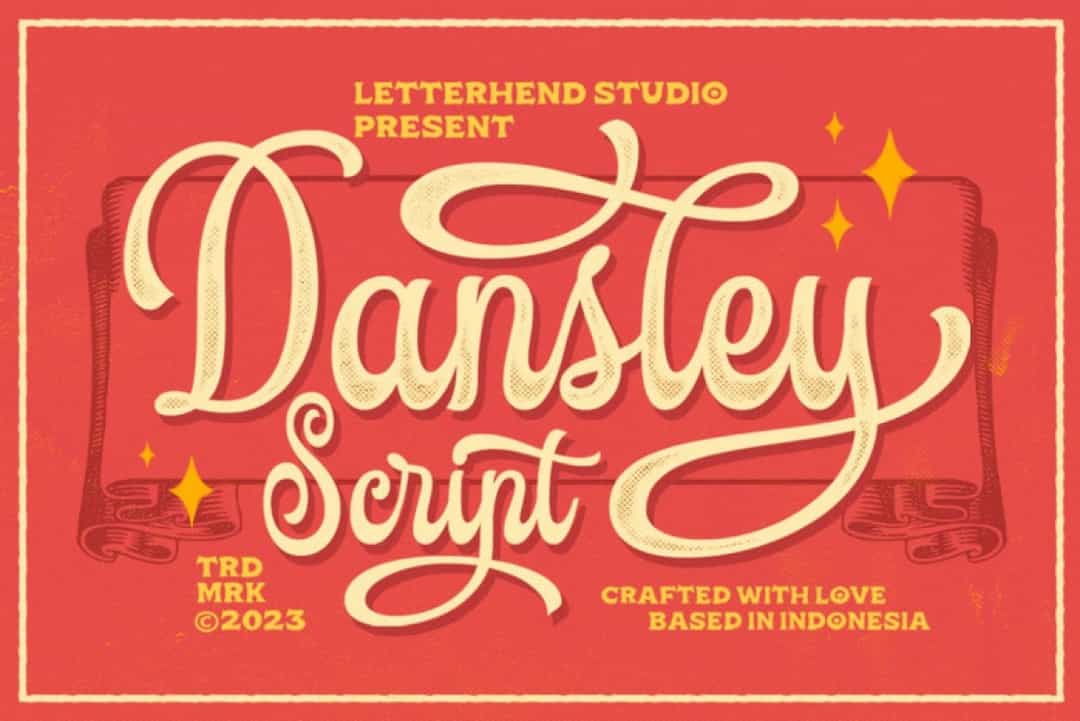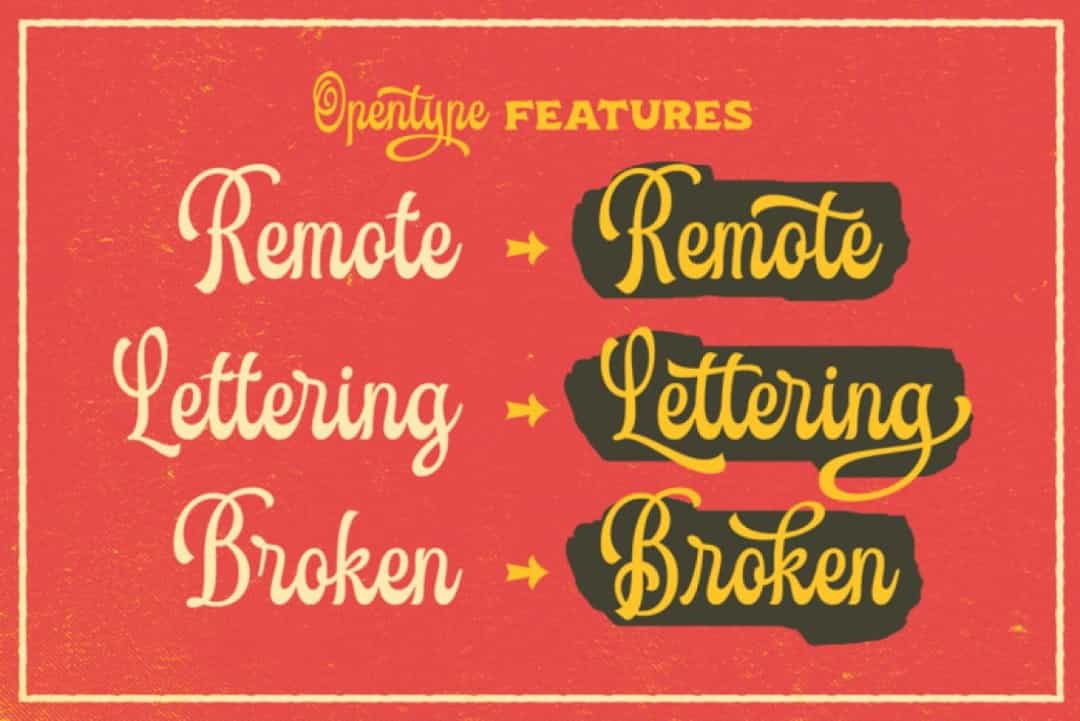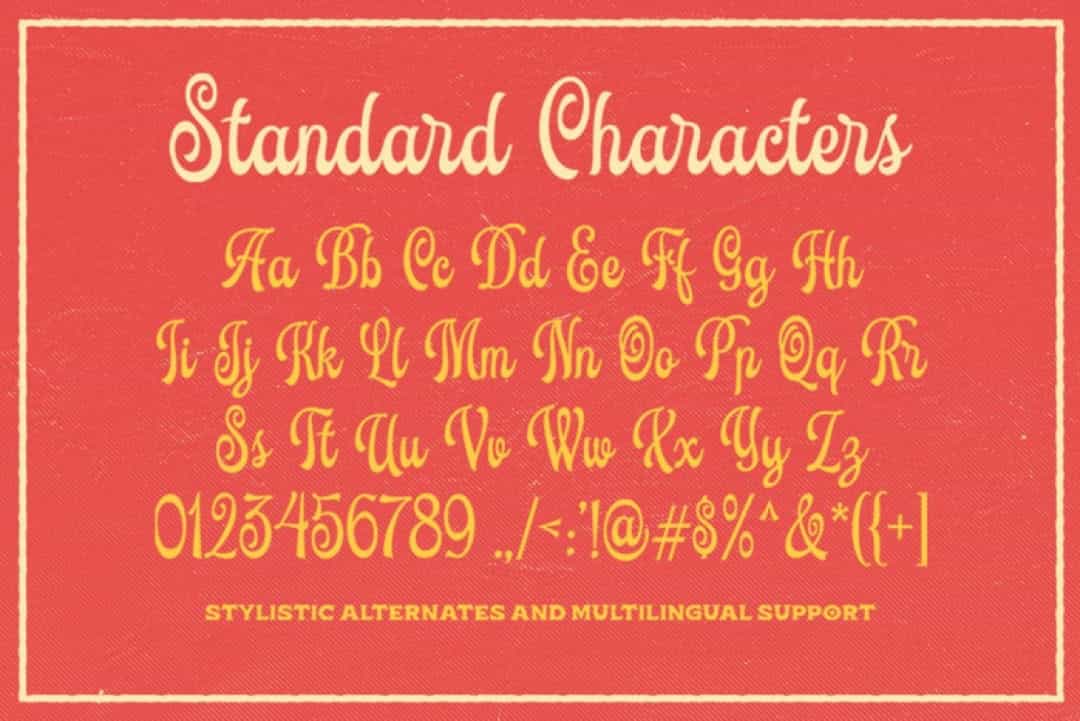
Dansley is an elegant script font with classic and vintage styles mixed together for a distinct twist. With its striking design and elegant features, its striking appearance adds elegance and character to any design project – ideal for logos, invitations and magazines, wedding cards packaging logos packaging makeup stationery books labels labels for advertising use or any other form of use.